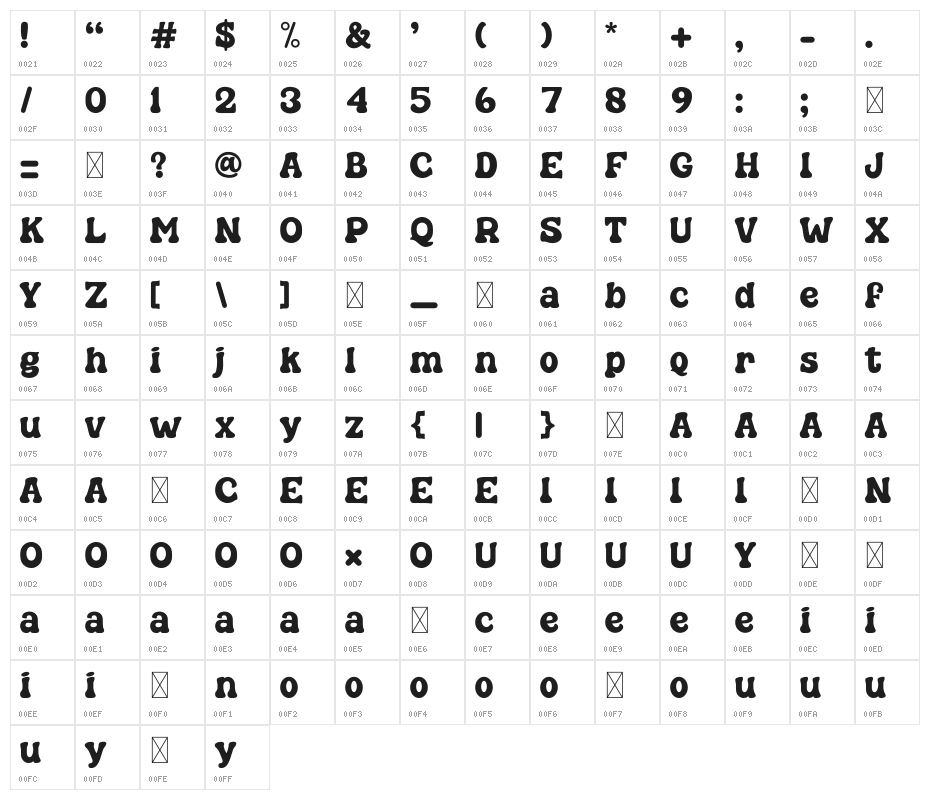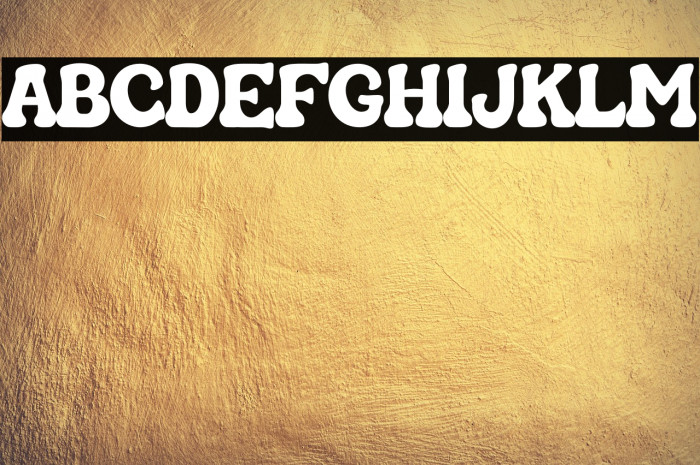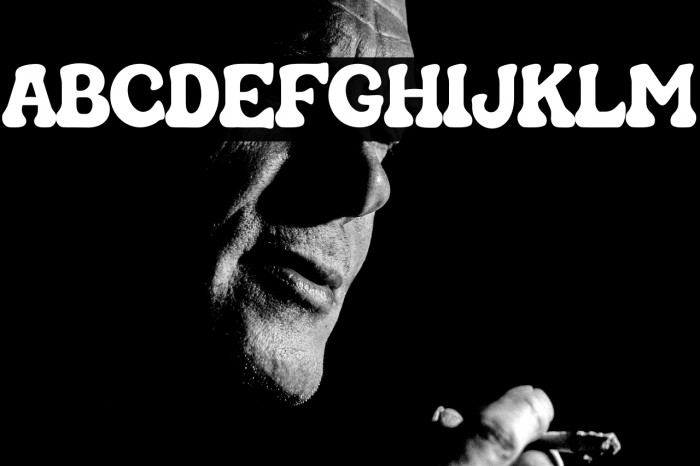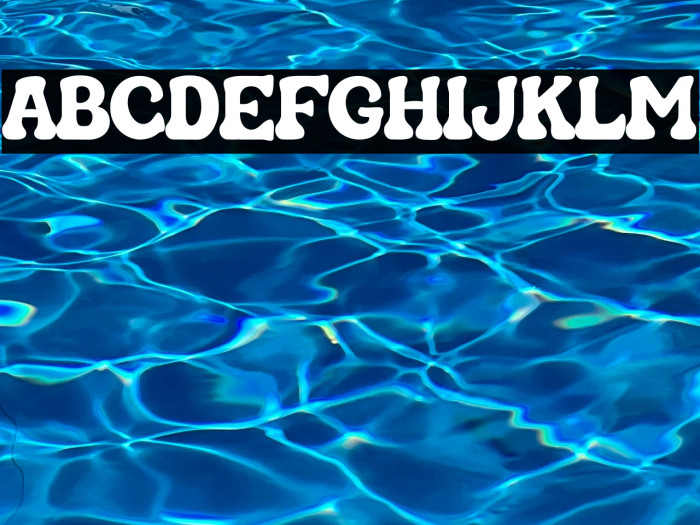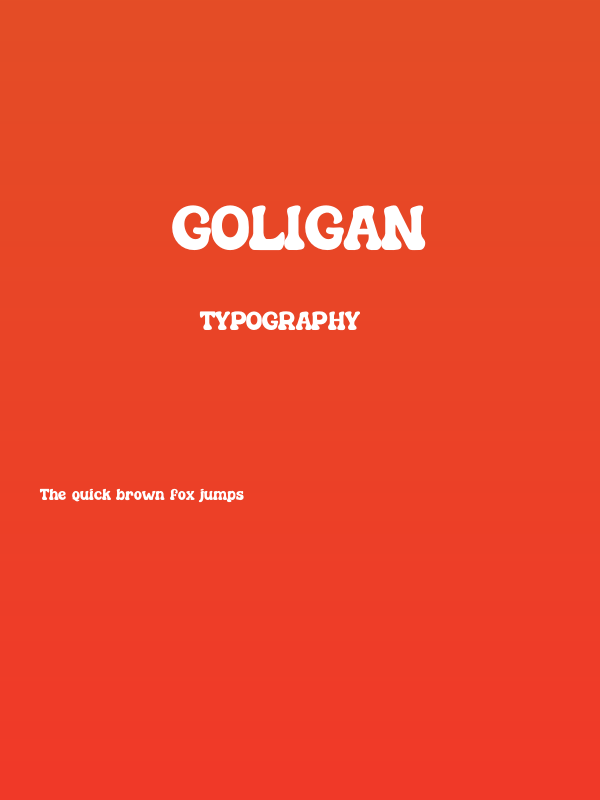
Goligan Font
Goligan Description
This font features a bold and playful design with rounded edges and a bubbly appearance. The characters are thick and have a consistent weight throughout, giving them a strong presence. The style is reminiscent of retro or vintage typefaces, often used in playful or informal contexts. The letters are evenly spaced, ensuring readability while maintaining a whimsical feel. The numbers and special characters follow the same design principles, making the font versatile for various uses. Its unique style makes it stand out, suitable for eye-catching designs.
| Proposed Projects | Ideal for children's books, playful branding, retro-themed posters, and eye-catching headlines. |